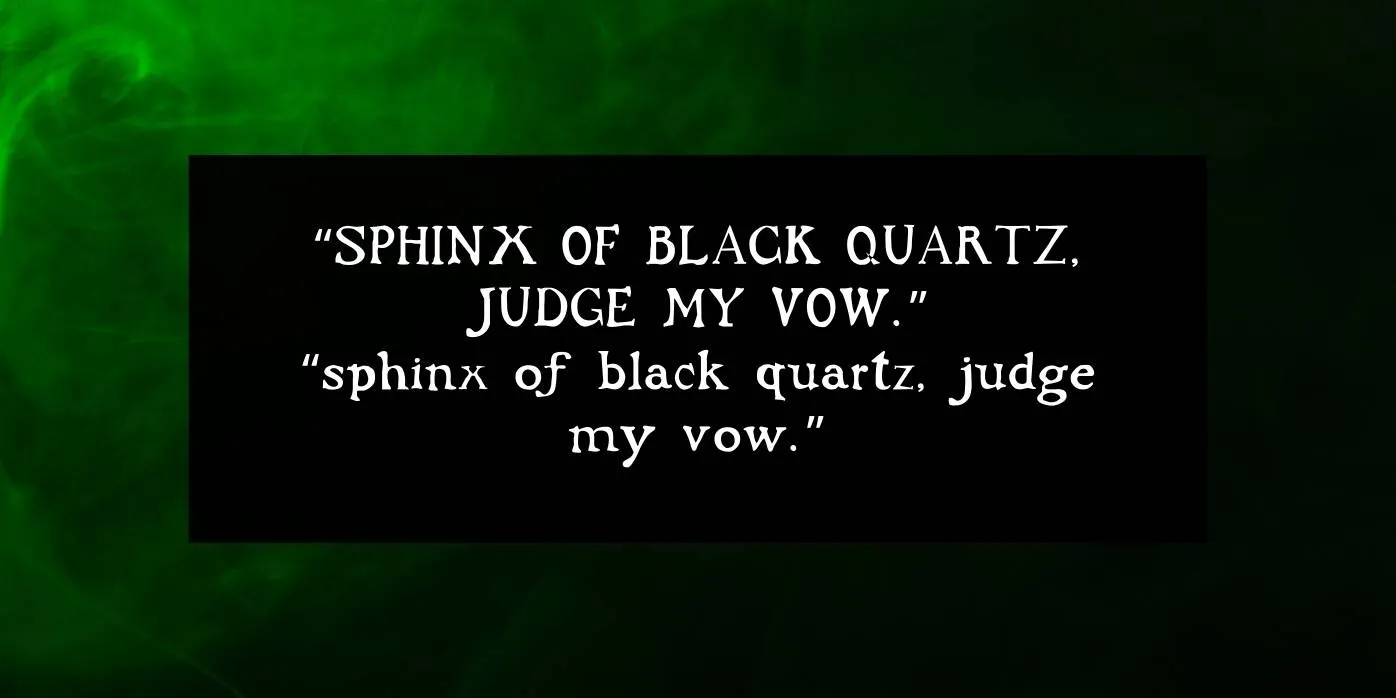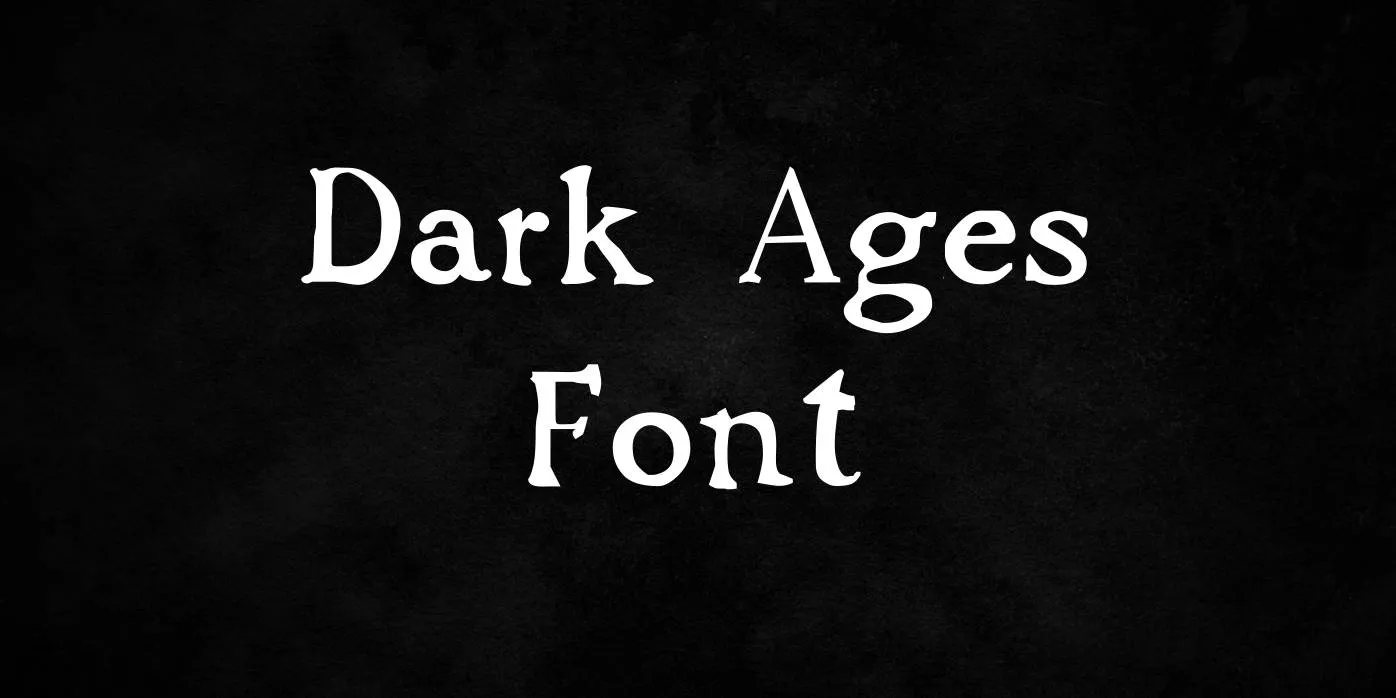
Dark Ages Font
Dark Ages Font is a fancy typeface that was used during printing projects. The font is characterized by its large size and heavy weight. The font was also used for advertising purposes. This Font has a unique history, which makes it an interesting choice for many people.
This font glyph has been used in many places as it is one of the most popular fonts. This Font has been used by some of the most famous people in history, such as Julius Caesar and Napoleon Bonaparte. The font has also been used by world-renowned artists, such as Pablo Picasso and Salvador Dali. You can give your designs a marvelous touch then try to pair tungsten font and make your designs astonishing.